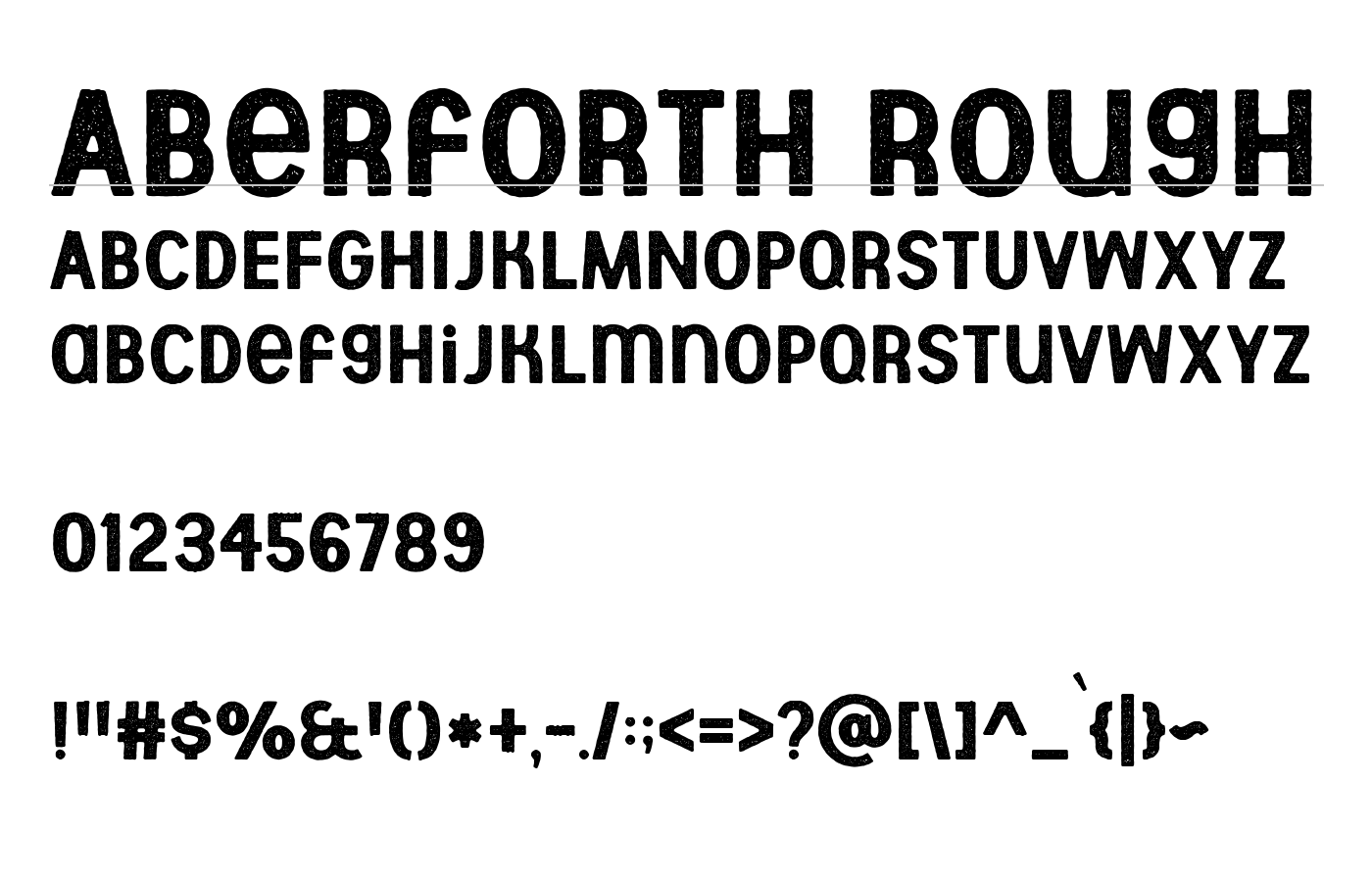
Aberforth Rough is a bold, condensed sans serif font with a distinctive textured, worn effect that adds a vintage, handcrafted feel. Its uppercase and lowercase letterforms feature soft, rounded edges with subtle irregularities, making it ideal for designs that need an authentic, rustic, or playful character. This font works well for headlines, branding, and packaging that aim to convey a charming, approachable, and creative vibe.
Aberforth Rough Font
About Aberforth Rough Font
| Font family | Aberforth Rough Font |
| Designer | Brittney Murphy Design |